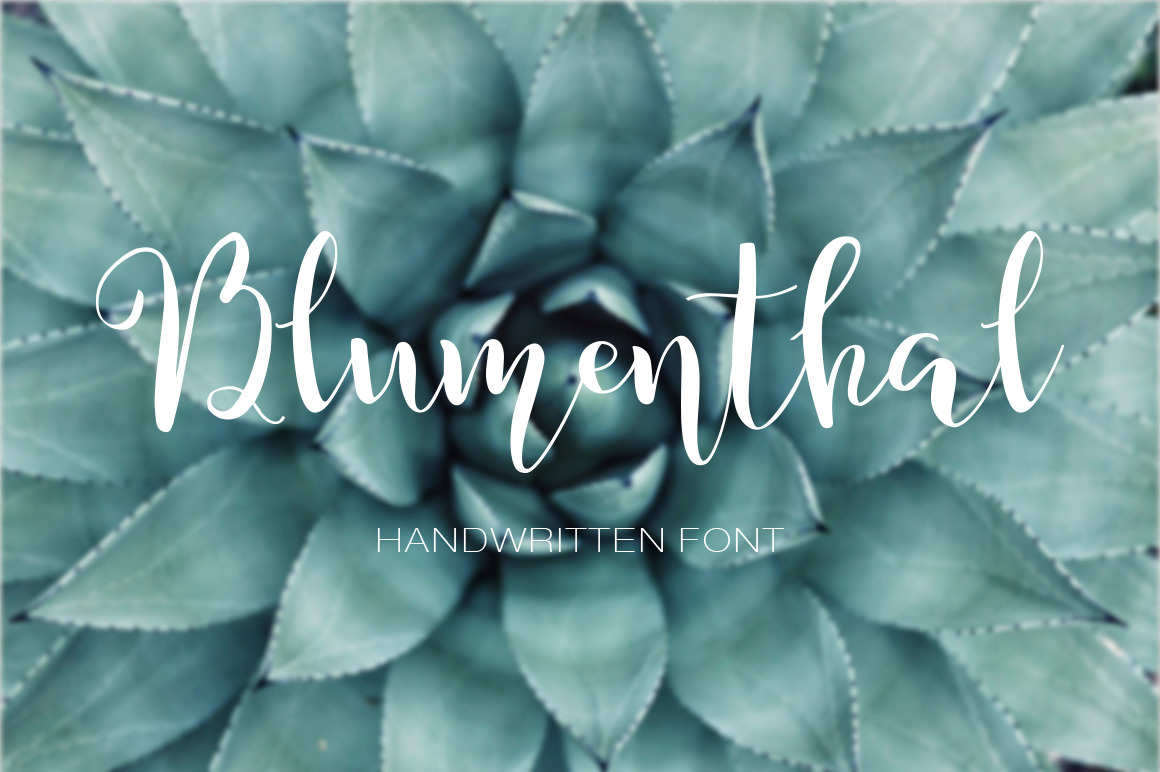
Blumenthal handwritten font
Handwritten font Blumenthal. A font containing upper & lowercase characters, numerals and a large range of punctuation. Dynamic font that allows you to create beautiful handwritten typography for greeting cards, labels, signs, posters, quotes, wall art, packaging, websites, photo & photography overlays, scrapbooking, design of printed materials and much more.